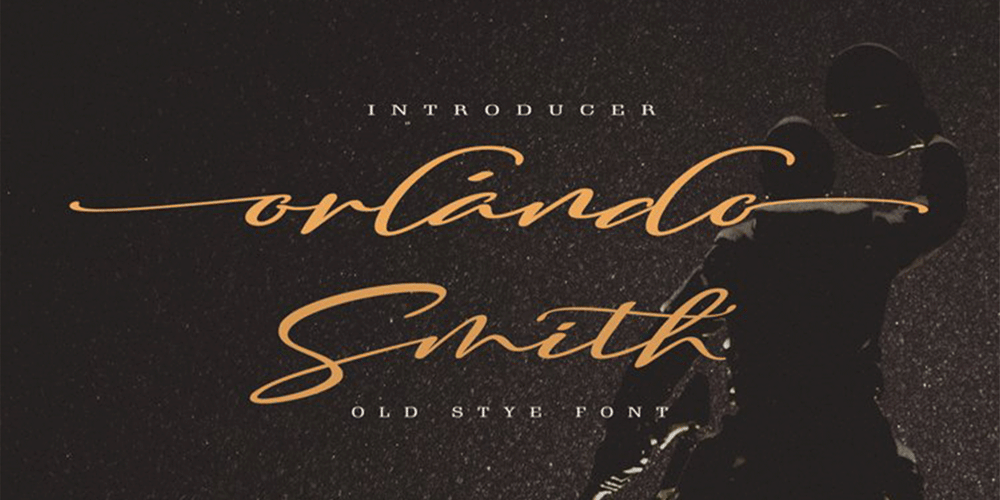
Orlando Smith Font Family was designed by Fadhil Aqsa and published by Meutuwah. Orlando Smith contains 1 styles and family package options. Hello Font Lovers…Orlando Smith is another lovely modern calligraphy typefaces, which is combining the style of classic calligraphy with an modern style. combines from copperplate to contemporary typeface with a dancing baseline, modern and elegant touch. including initial and terminal letters, alternates, and ligatures.Can be used for various purposes.such as headings, logos, wedding invitation, t-shirt, letterhead, signage, lable, news, posters, badges etc.To enable the OpenType Stylistic alternates, you need a program that supports OpenType features such as Adobe Photoshop, Adobe Illustrator, Adobe Indesign, Corel Draw, and More!!!Thank you for your purchase…